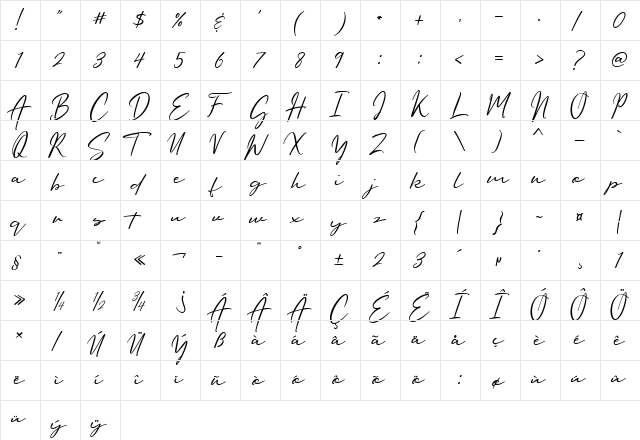
Oriflame Script Regular
Design Context for Oriflame Script Typeface
Oriflame Script flows with the natural rhythm of handwritten lettering, making it ideal for designs that call for warmth and personal expression.
Font Pairing: Combine Oriflame Script with a simple geometric sans for maximum contrast — the tension between flowing curves and clean structure is a classic typographic pairing.
Pro Tip: Pair Oriflame Script with a clean sans-serif for supporting text. The contrast between fluid script and geometric structure creates an elegant typographic hierarchy.